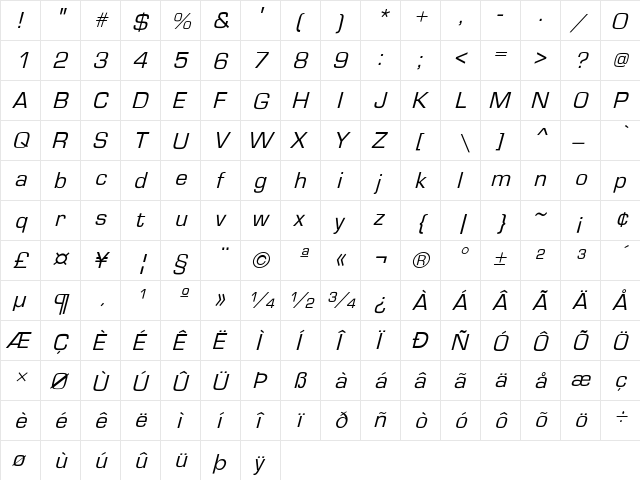
EurostileObl-Normal Regular
Design Context for EurostileObl-Normal Typeface
EurostileObl-Normal is a composed and adaptable typeface that performs quietly and consistently across a wide range of design contexts.